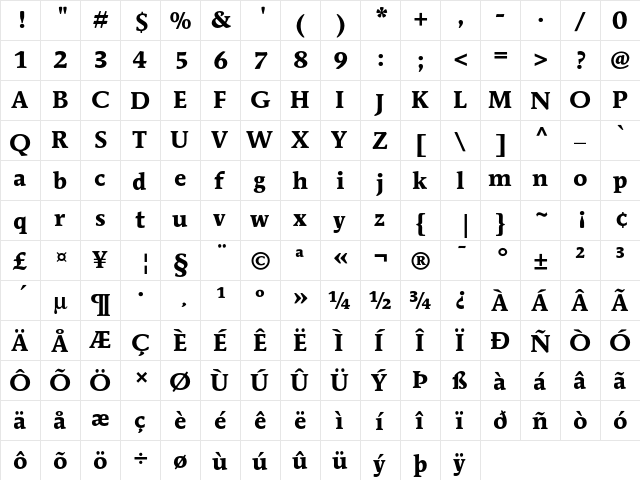
ITC Mendoza Roman Bold
Design Context for ITC Mendoza Roman Typeface
ITC Mendoza Roman offers clean, dependable letterforms without strong stylistic allegiance, making it a practical choice for designers who need flexibility. Its bold stroke weight gives it real presence on the page.
Pro Tip: Use ITC Mendoza Roman in both headline and body roles to test its range before committing to a single application.